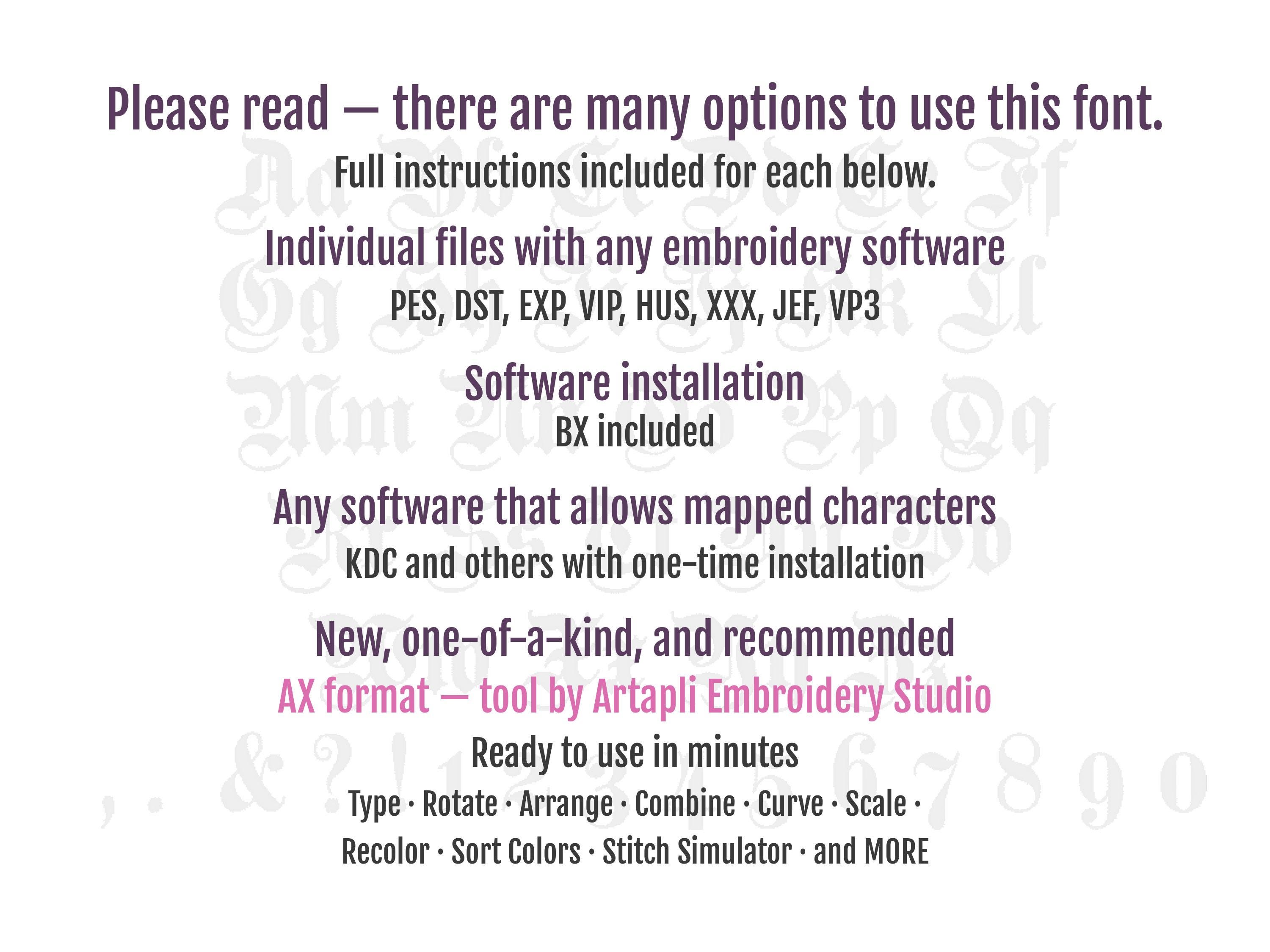
Fairytale old English Font Gothic book knight old fashioned satin stitch Font machine embroidery designs monogram alphabet 0.5 up to 2 inch and BX
Satin stitch design
Caps, letters, numbers, and punctuation
this font stitched out great
stitched amazing! was perfect for what i needed it for
Fonte muito bonita, muito obrigada
Very nice font! Used it for the Names on my daughter's and her friends' birthday party t-shirts! Nice effect, was using glow in the dark thread, so when the I turned on the black light, all of my daughter's friends LOVED the fact they could see each other's names (with the pumpkin design) while they were dancing! Lots of fun and creative for Halloween (gothic/victorian) style designs!!! Very nice/calligraphy effect of the font! LOVE IT!!!